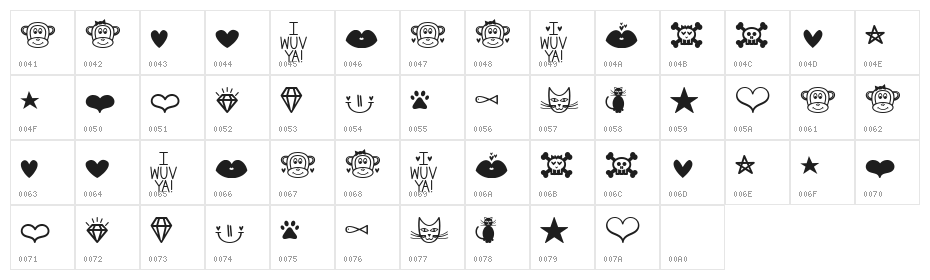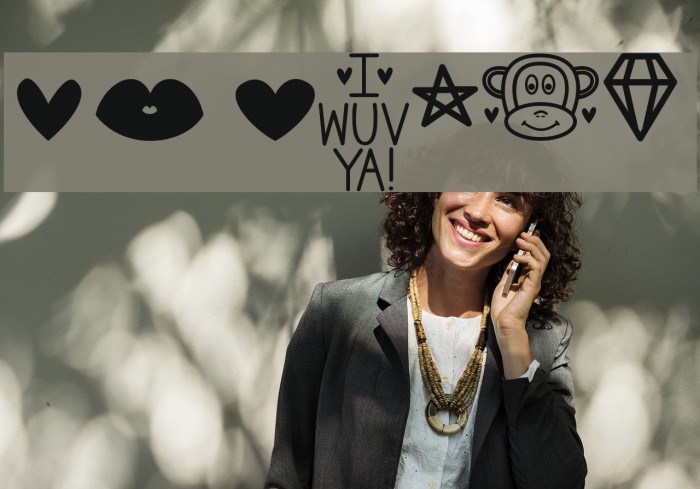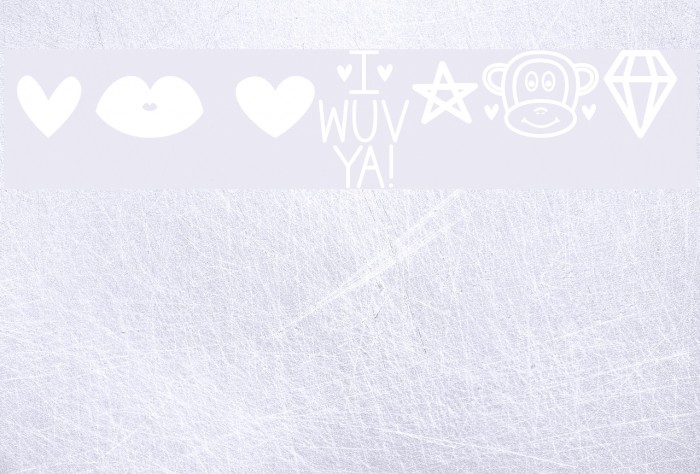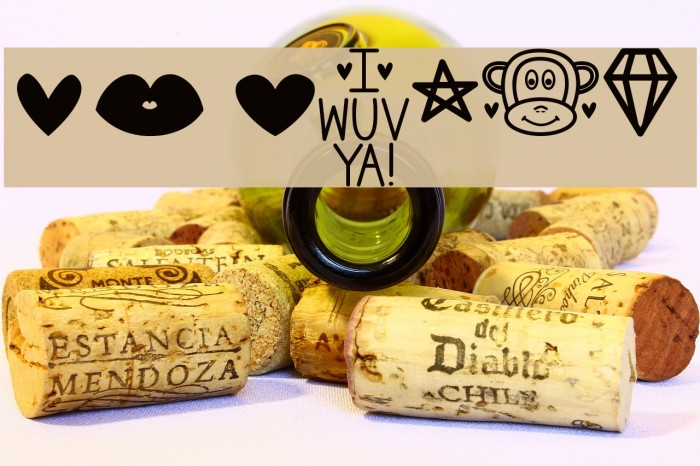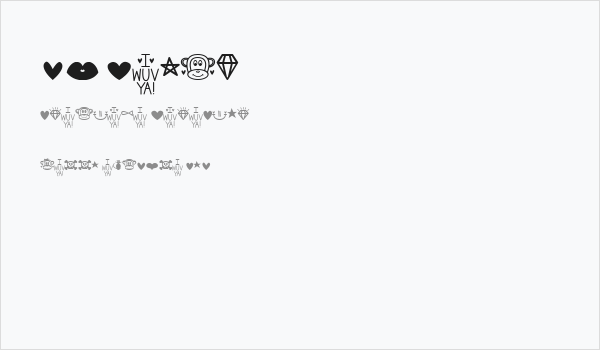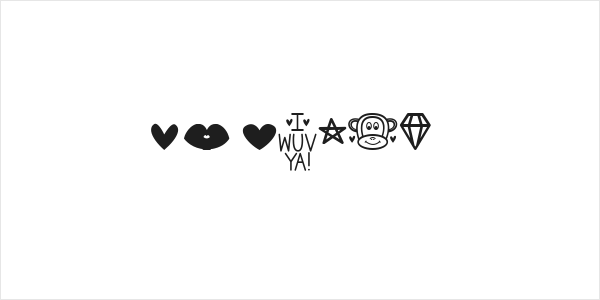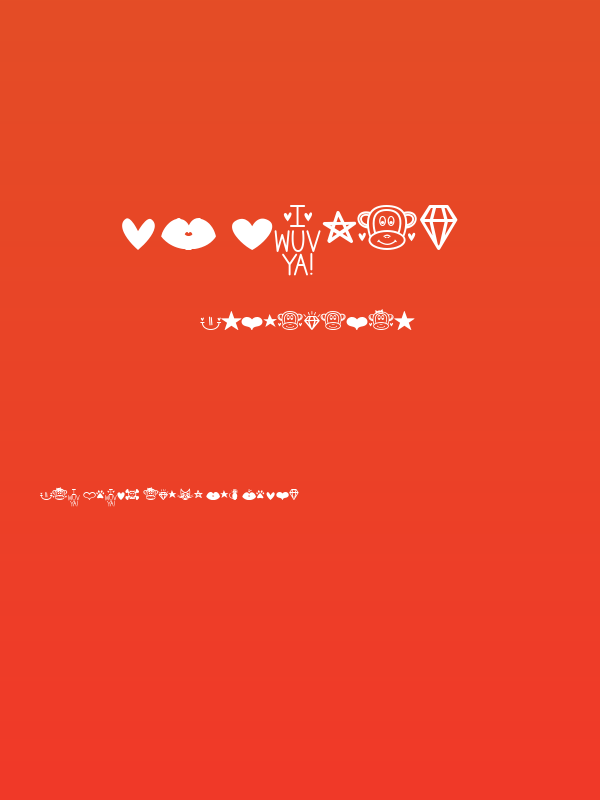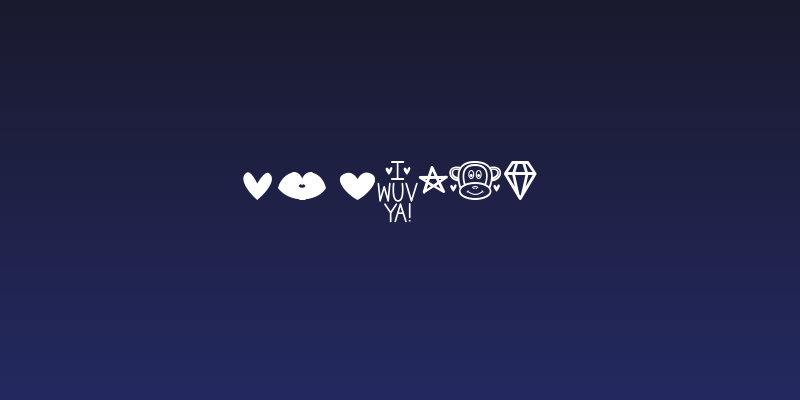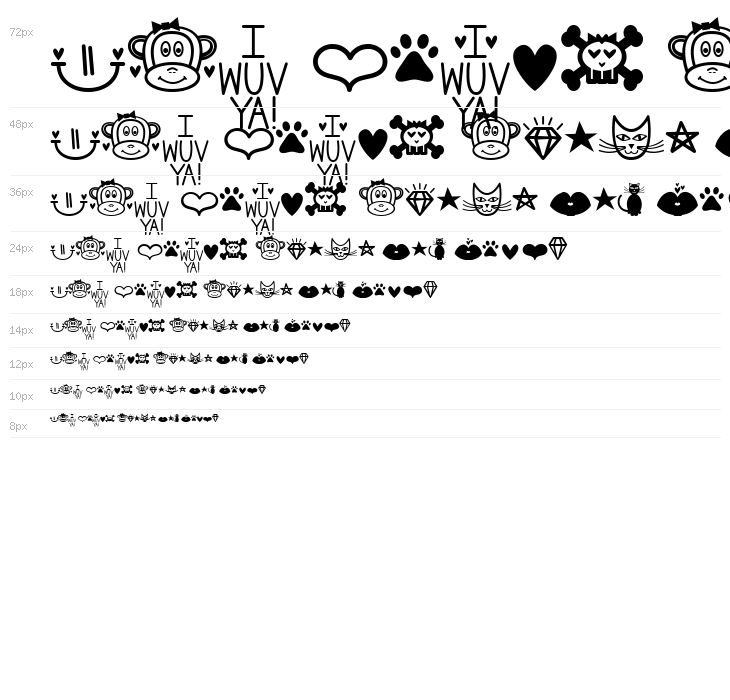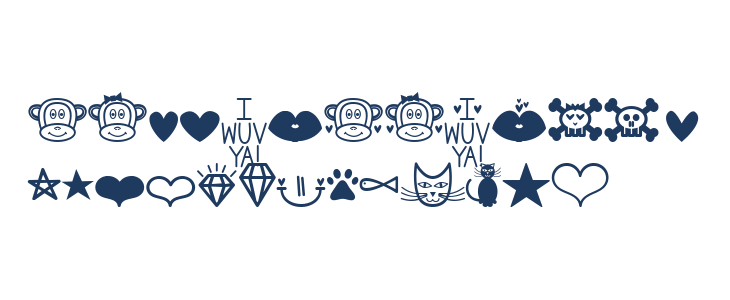
MF Dings 2 Font
MF Dings 2 Description
This collection features a playful and whimsical set of dingbats, including various cartoon-style icons such as monkeys, hearts, lips, diamonds, stars, and cats. Each symbol is bold and distinct, designed to add a fun and quirky touch to any project. The icons are well-defined with clear outlines, making them suitable for both digital and print media. The style is consistent across all characters, maintaining a light-hearted and cheerful theme that can appeal to a wide audience. These symbols can be used to convey emotions, decorate text, or enhance visual storytelling.
| Overall Style | Whimsical |
| Use Case | Decorative elements, embellishments, playful designs. |
| Proposed Projects | Ideal for greeting cards, children's books, playful branding, and social media graphics. |